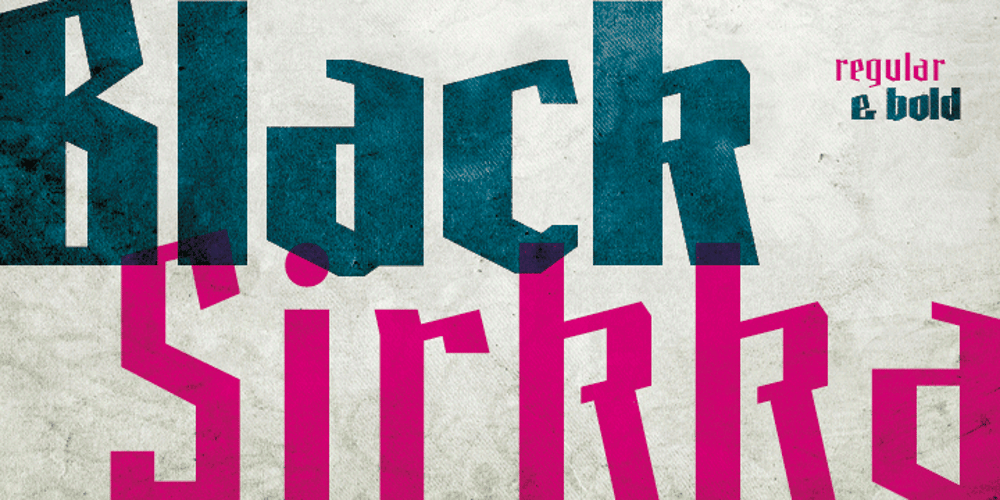
Black Sirkka
Black Sirkka font
Black Sirkka Font Family was designed by Sirkka Hammer and published by Volcano Type. Black Sirkka contains 2 styles and family package options. The idea of the font Black Sirkka was, to develop a modern interpretation out of the general blackletter typefaces. Black Sirkka is a bastard with the typical characteristics of the blackletters, mixed up with modern, simple shapes from grotesk typefaces. The whole typeface was built up in a modular construction system.